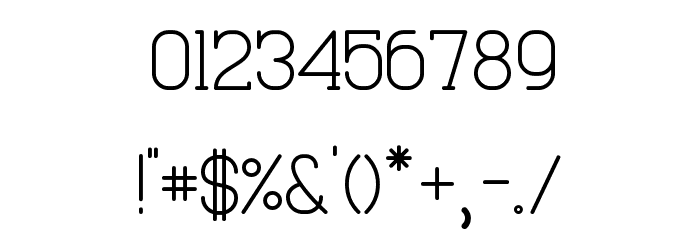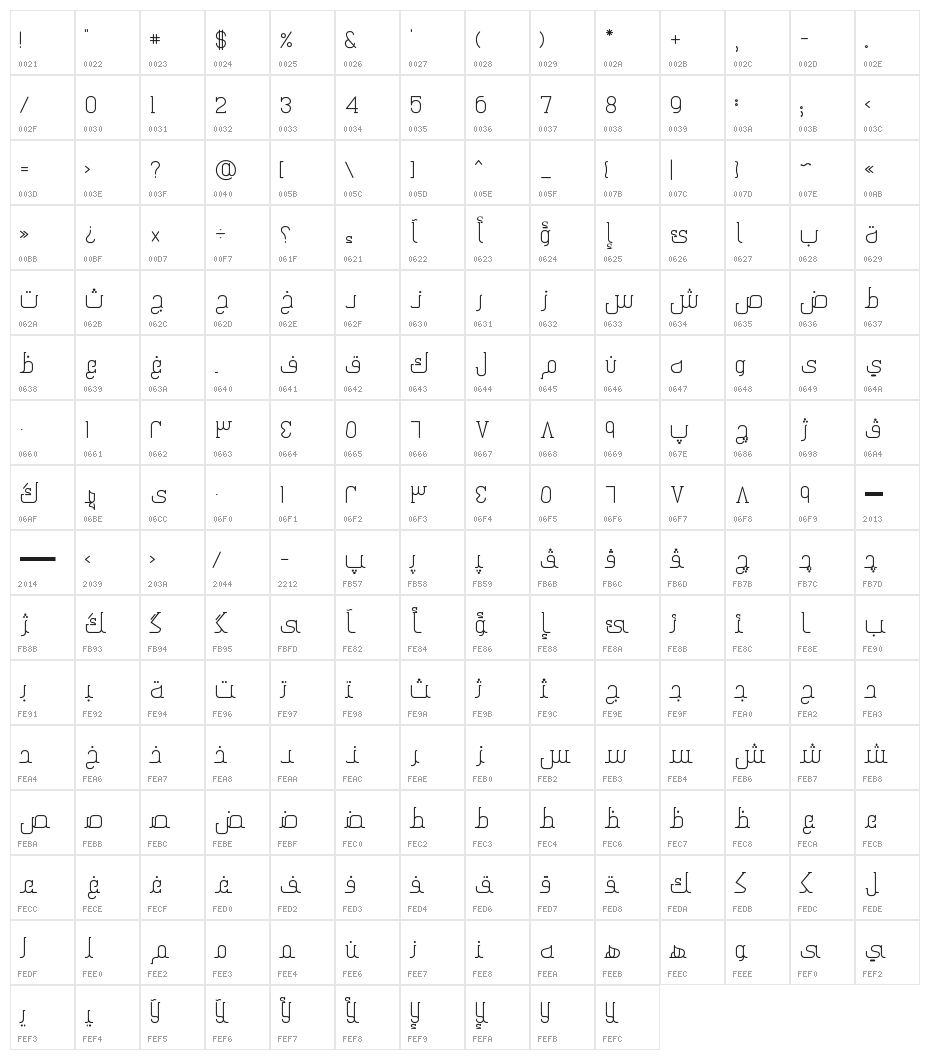
Arabic Cabo Font Description
This font presents a sleek and modern aesthetic with clean lines and a minimalist approach. The characters are evenly spaced, providing a balanced and harmonious look. The numbers and special characters maintain the same clean and contemporary style, ensuring consistency across all elements. The font's simplicity and clarity make it highly readable, suitable for various digital and print applications. Its geometric shapes and uniform stroke widths contribute to a professional and polished appearance, ideal for modern design projects.